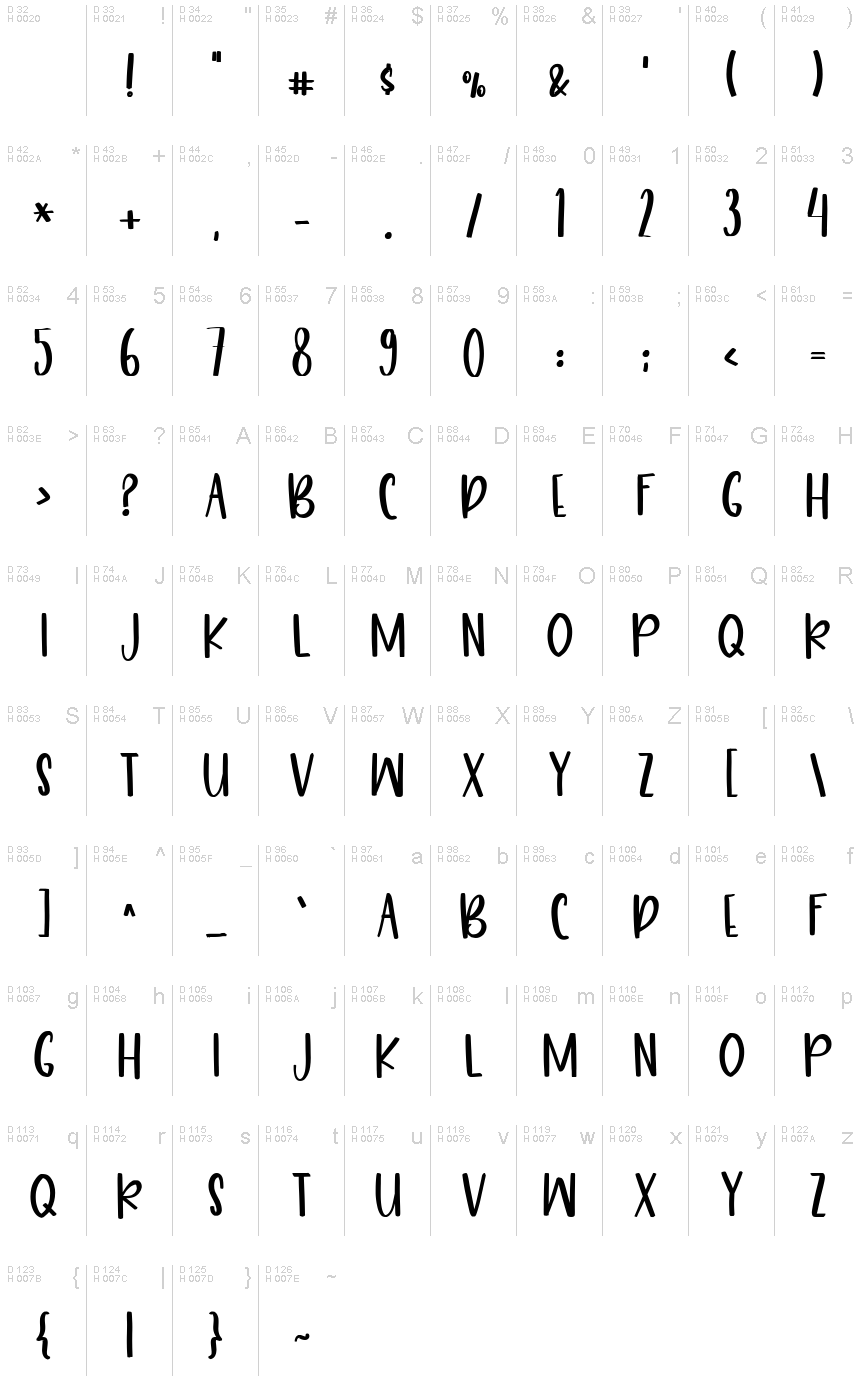
Smart Pumkin
Smart Pumpkin, designed by Goodrichees, is a captivating handwritten font with a distinct Halloween aesthetic. Its condensed width and playful, skewed letterforms evoke a sense of whimsy and spooky charm. The font's rough, organic texture, complete with subtle variations and imperfections, lends an authentic, hand-crafted feel that adds depth and character to any design. The bold, dramatic strokes and sharp, angular terminals create a striking visual impact, making this font a standout choice for projects seeking a bold, attention-grabbing aesthetic.
This versatile font shines in a variety of applications, from Halloween-themed branding and packaging to horror-inspired media and event materials. Its condensed nature also makes it an excellent option for headlines, titles, and display text where space is limited. Smart Pumpkin's unique personality and versatility make it a versatile tool for designers seeking to infuse their projects with a touch of eerie elegance and festive flair.